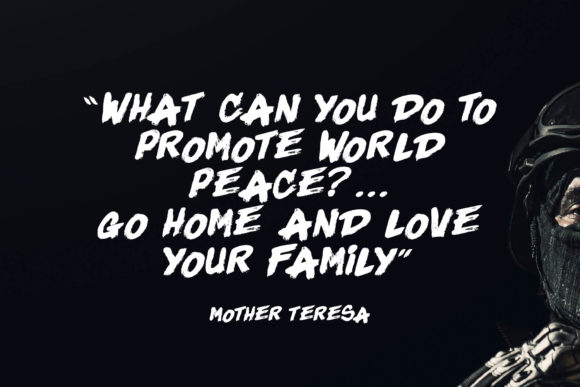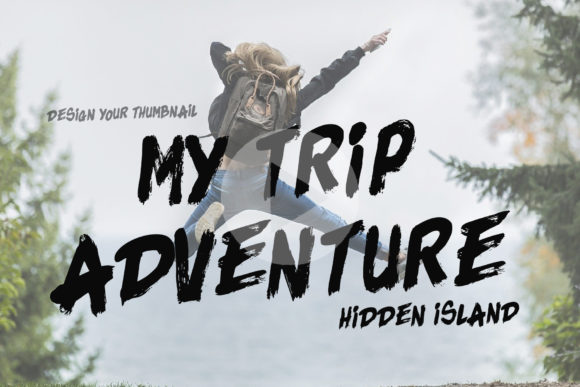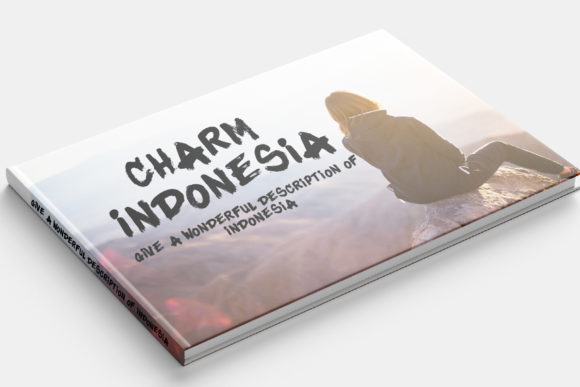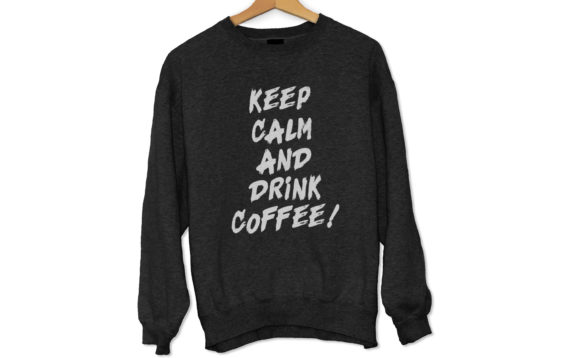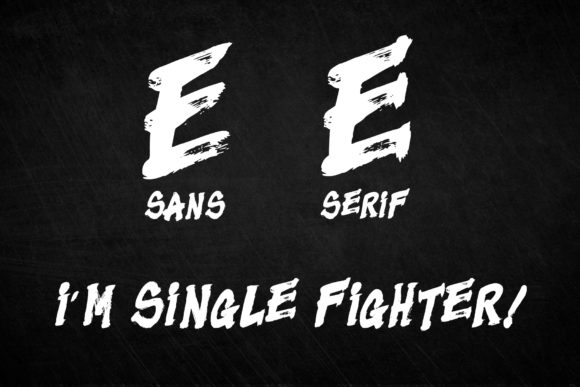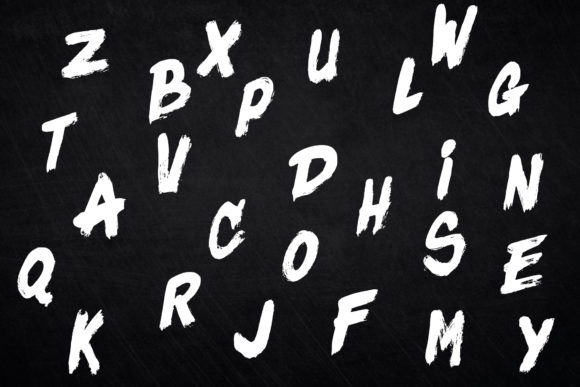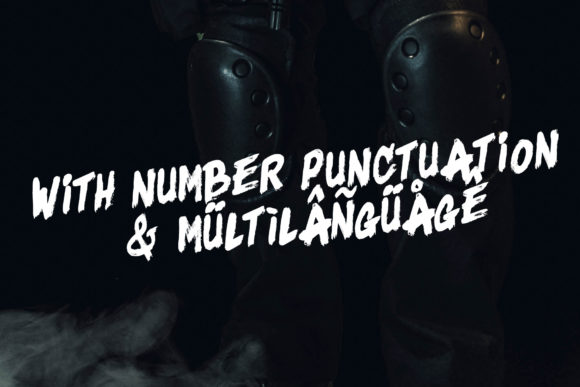
HomeScript FontsThe Army of God Font Script Fonts The Army of God Font FacebookXPinterestWhatsApp The Army of God Font Poster 2 The Army of God Font Poster 3 The Army of God Font Poster 4 The Army of God Font Poster 5 The Army of God Font Poster 6 The Army of God Font Poster 7 The Army of God Font Poster 8 About The Army of God Font The Army Of God is a natural dry brush font that will add a stylish twist to your designs DOWNLOAD ON CREATIVE FABRICAThis font is sold and delivered by Creative Fabrica. Font Canyon may earn a commission if you buy through this link. People also explored PlaygroundNW Font Byronic Font Dingos Soft Cream Bella Canvas 3001 Mockup James Theodore Font Natalisa Font Anatomia Script Font Lemonmade Font Venetian Workshop Front Door | Poster Mockup 335 0 TagsThe Army of God Font Previous articleClaudya FontNext articleAmstella Font LEAVE A REPLY Cancel reply Comment: Please enter your comment! Name:* Please enter your name here Email:* You have entered an incorrect email address! Please enter your email address here Website: Save my name, email, and website in this browser for the next time I comment. Personal Use Free Deco Neue Wilde Personal Use Free Read more about this font Starry Cakes Personal Use Free Read more about this font Super Caramel Font Personal Use Free Read more about this font Tahu Font Personal Use Free Read more about this font BLOG How to Cut Any Font on Cricut: Convert a Font to SVG (Free) Turn any font into a clean SVG so it cuts crisp on Cricut - a quick 3-step workflow using a free font-to-SVG tool. Top 10 Handwritten Fonts That Elevate Your Designs Elegant Wedding Invitation Fonts – Handwritten & Script Fonts How to Install and Use Fonts on Windows, macOS, and Web Projects